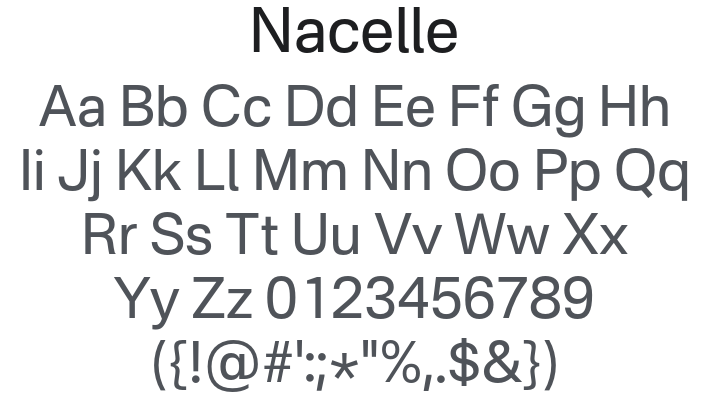
Nacelle Font Family
by dot colon
About Nacelle
Nacelle is a neo-grotesque sans-serif typeface that has undergone a comprehensive redesign and overhaul of Aileron.
While retaining Aileron’s core concept—creating a neo-grotesque typeface that is easy to view and distinguish within user interfaces—we have adjusted the metrics and refined the details to achieve more natural letterforms.